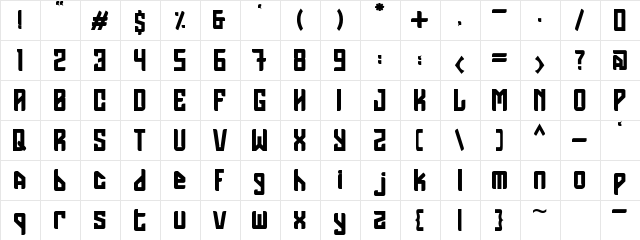
GRAMES Regular
| Designer | TAN ZUHA N |
Design Context for GRAMES Typeface
GRAMES is a composed and adaptable typeface that performs quietly and consistently across a wide range of design contexts.